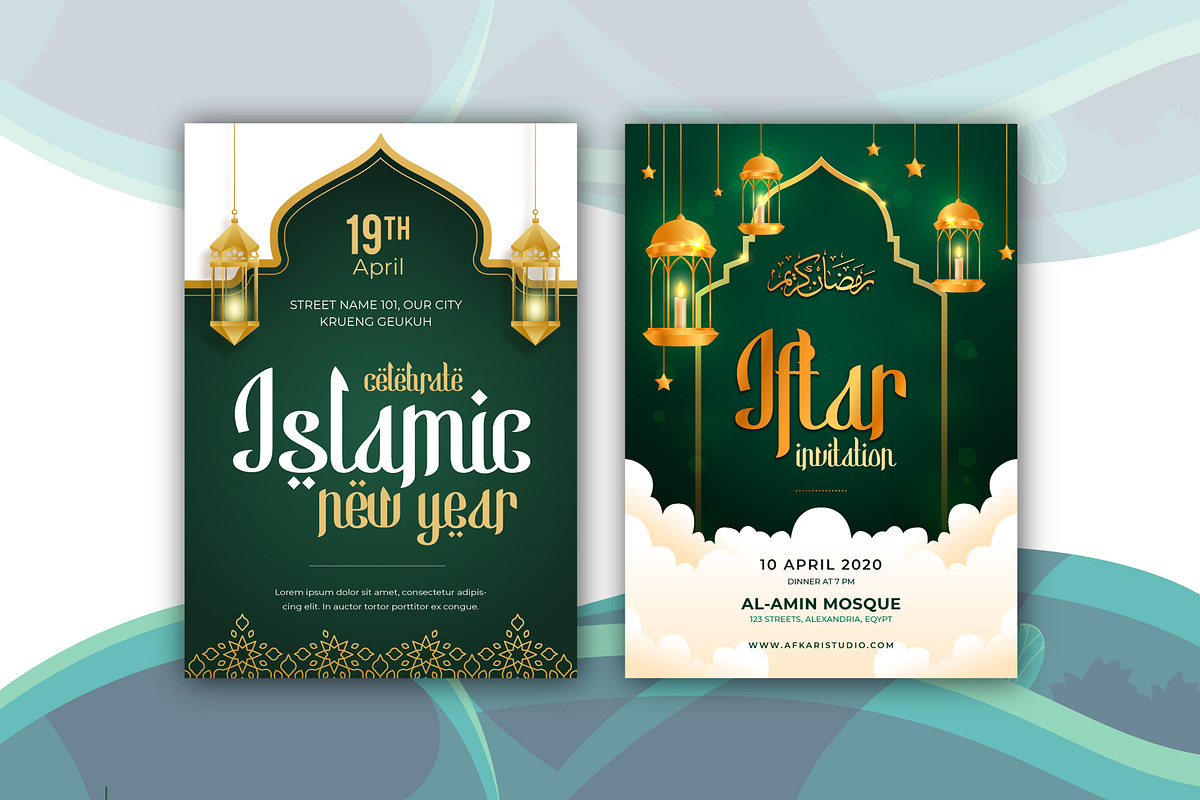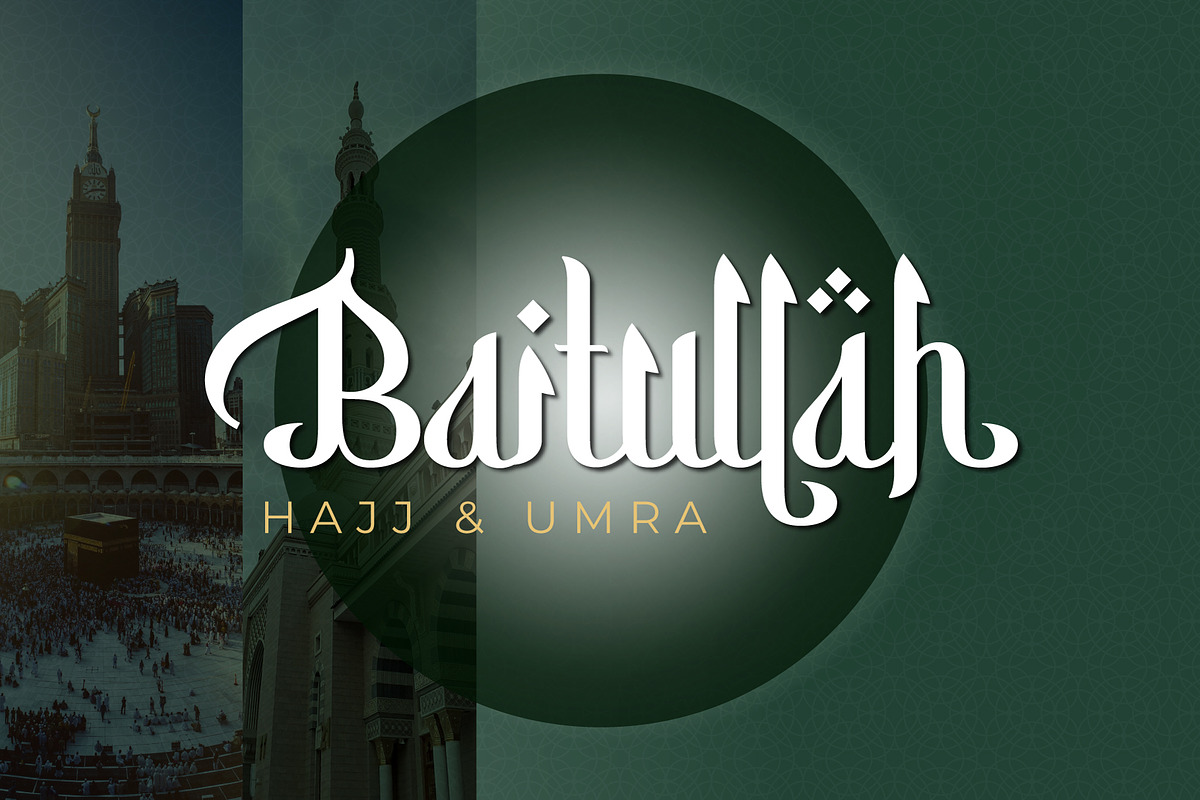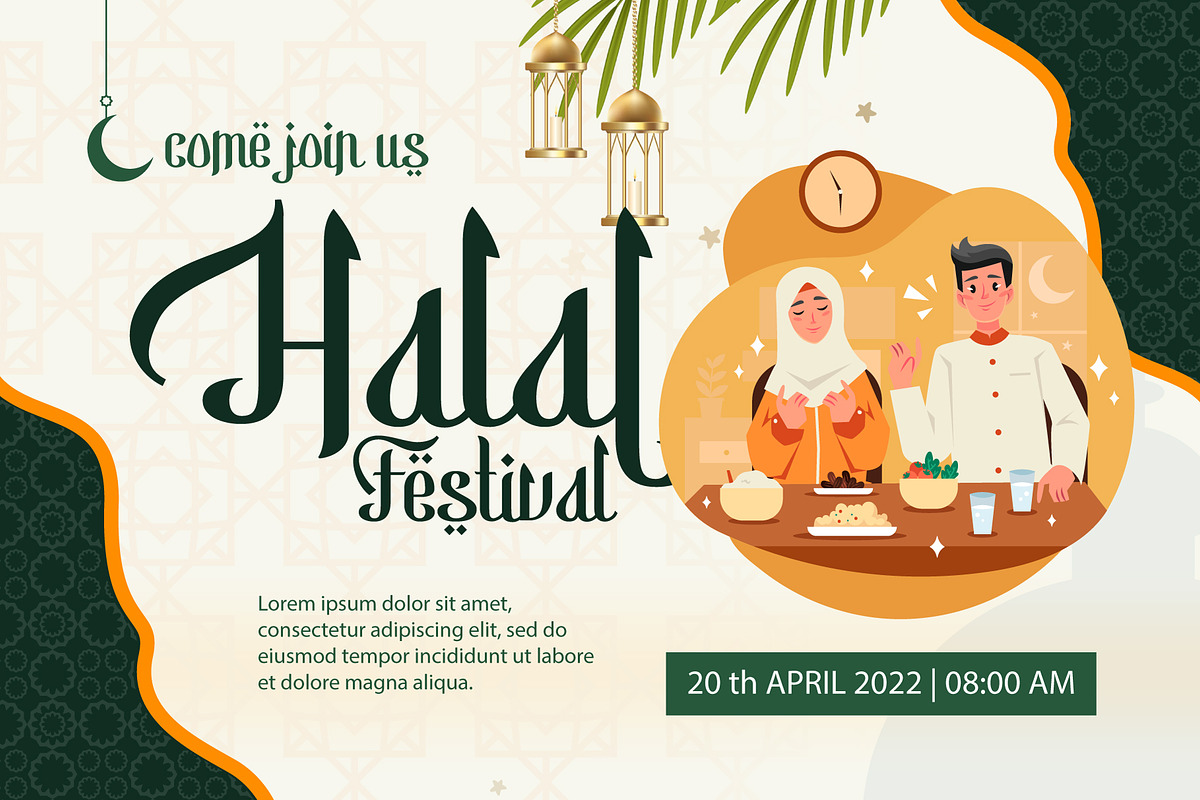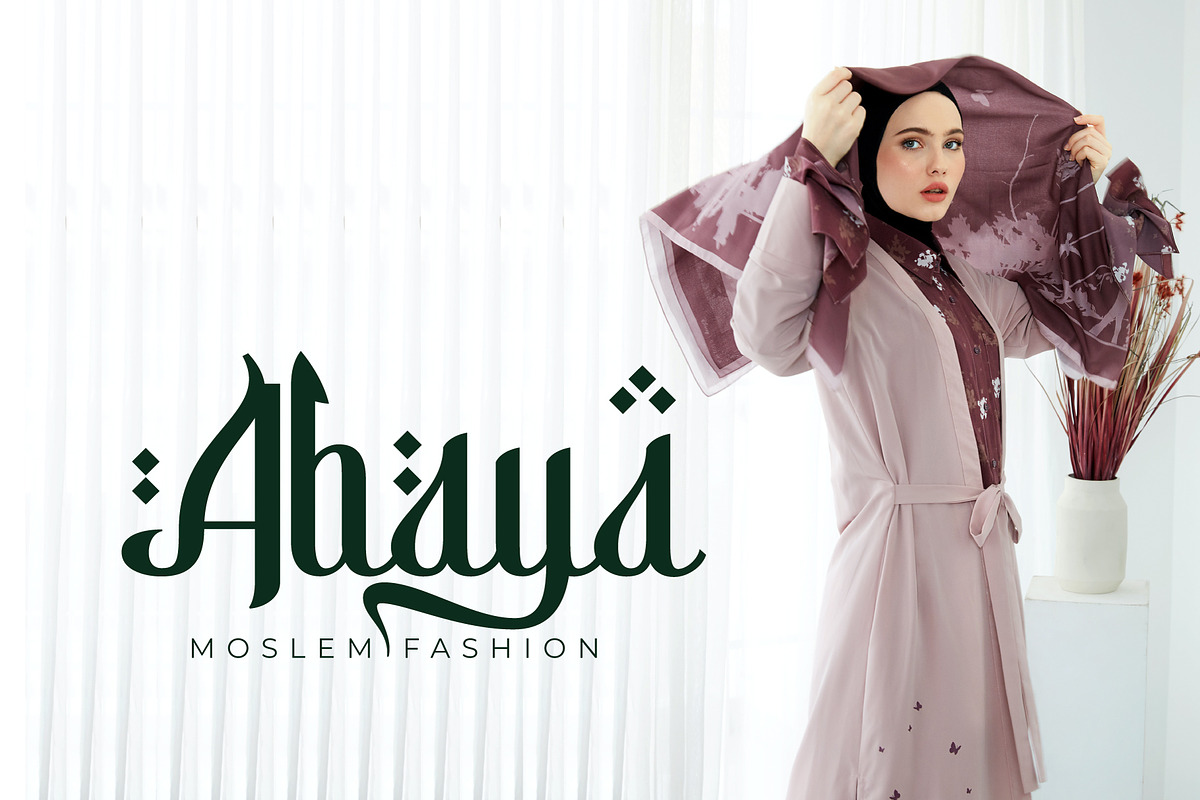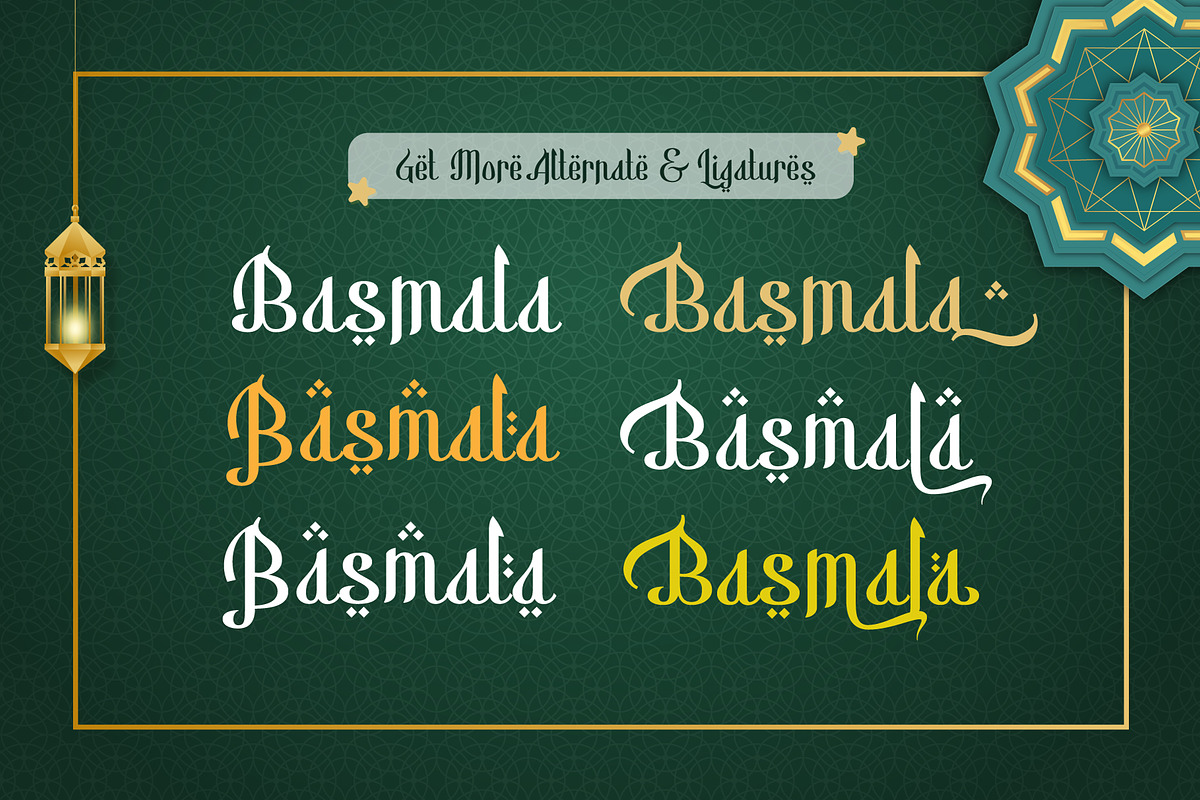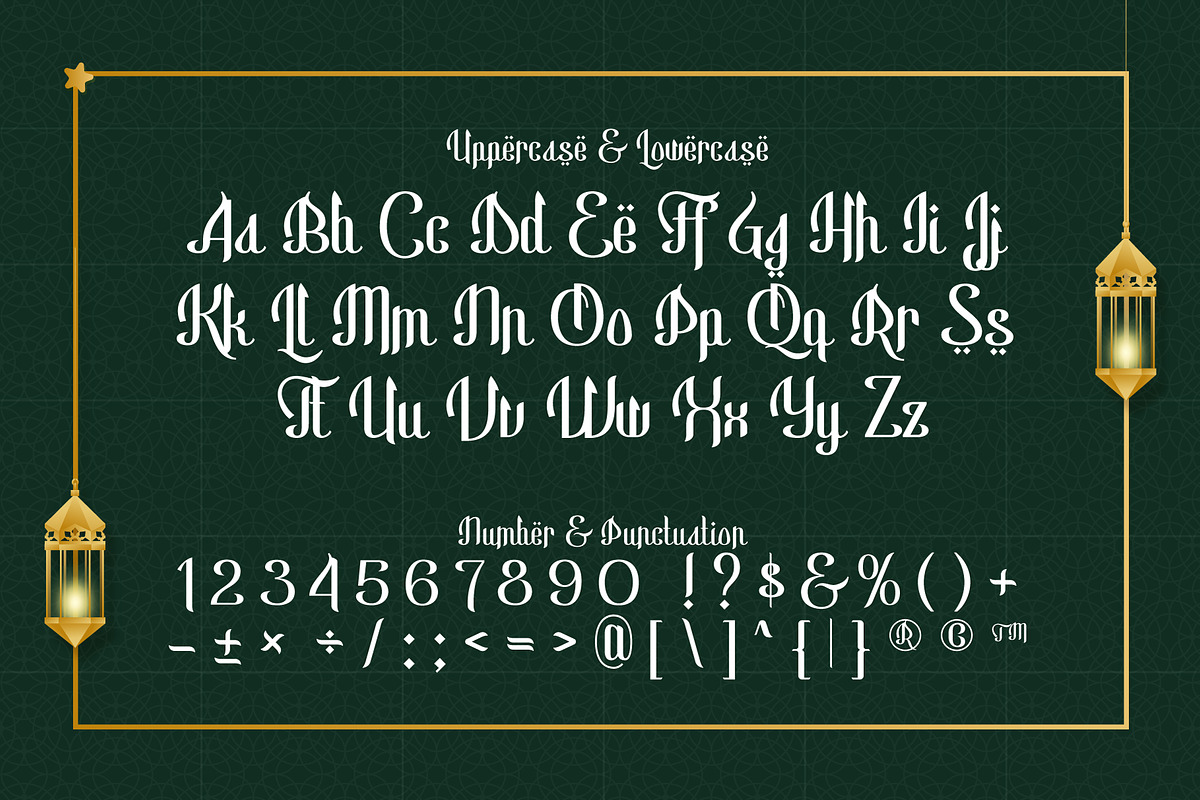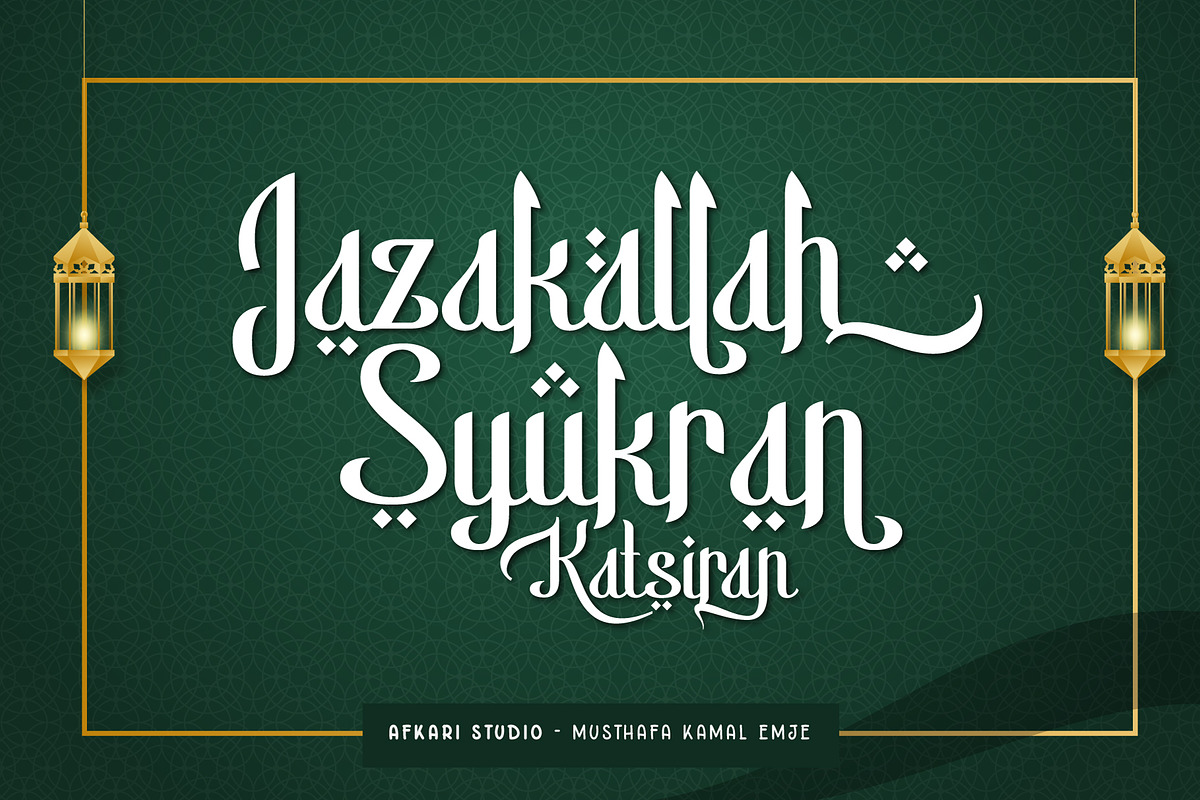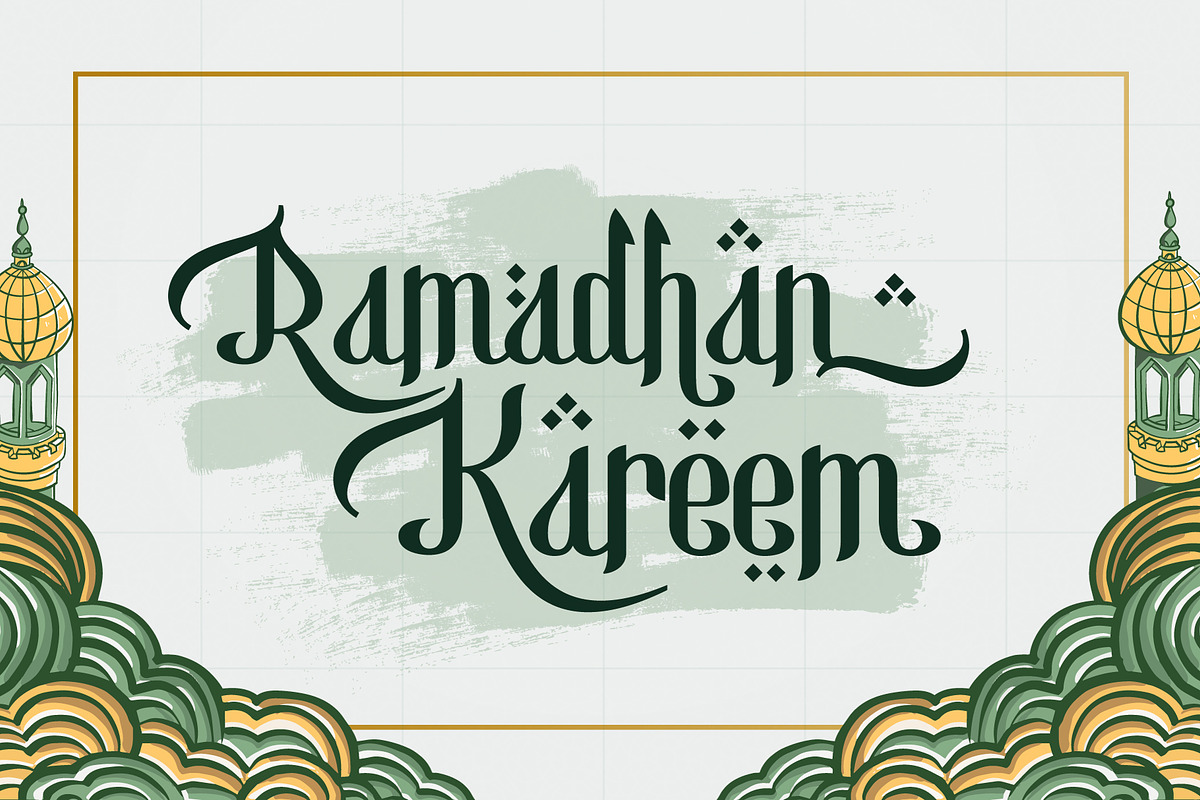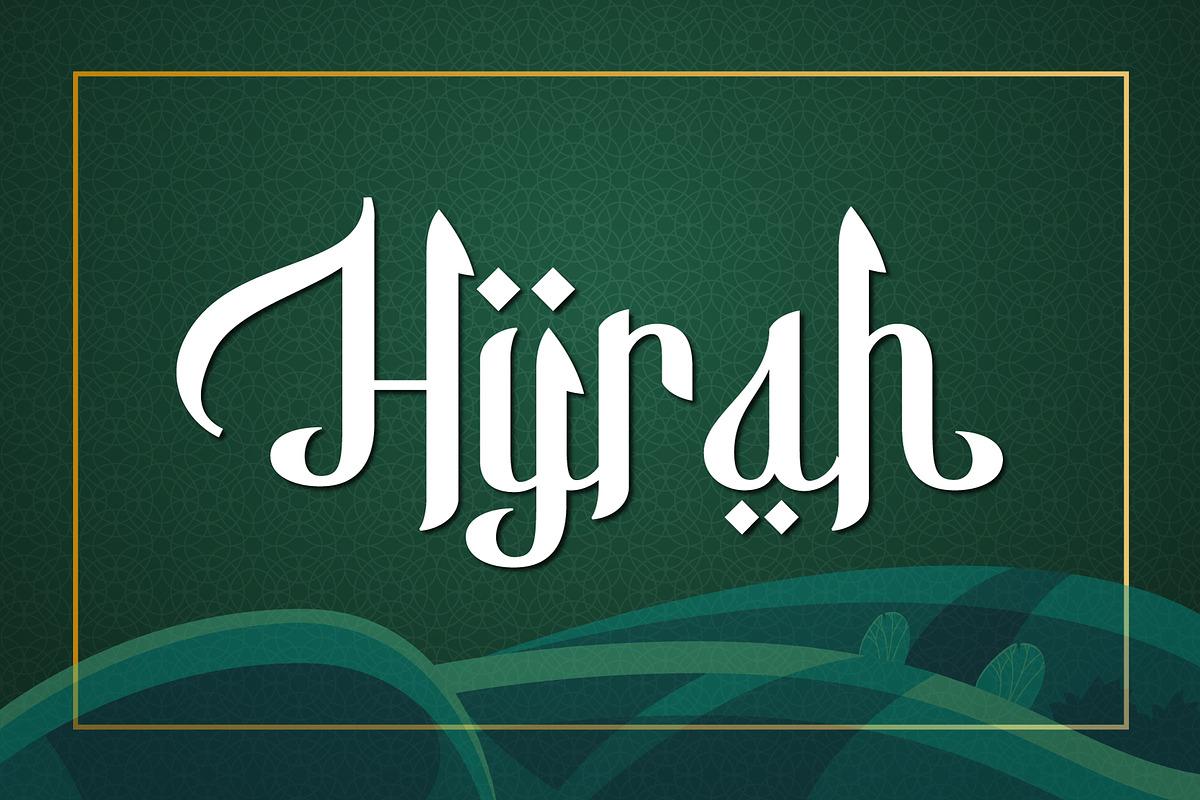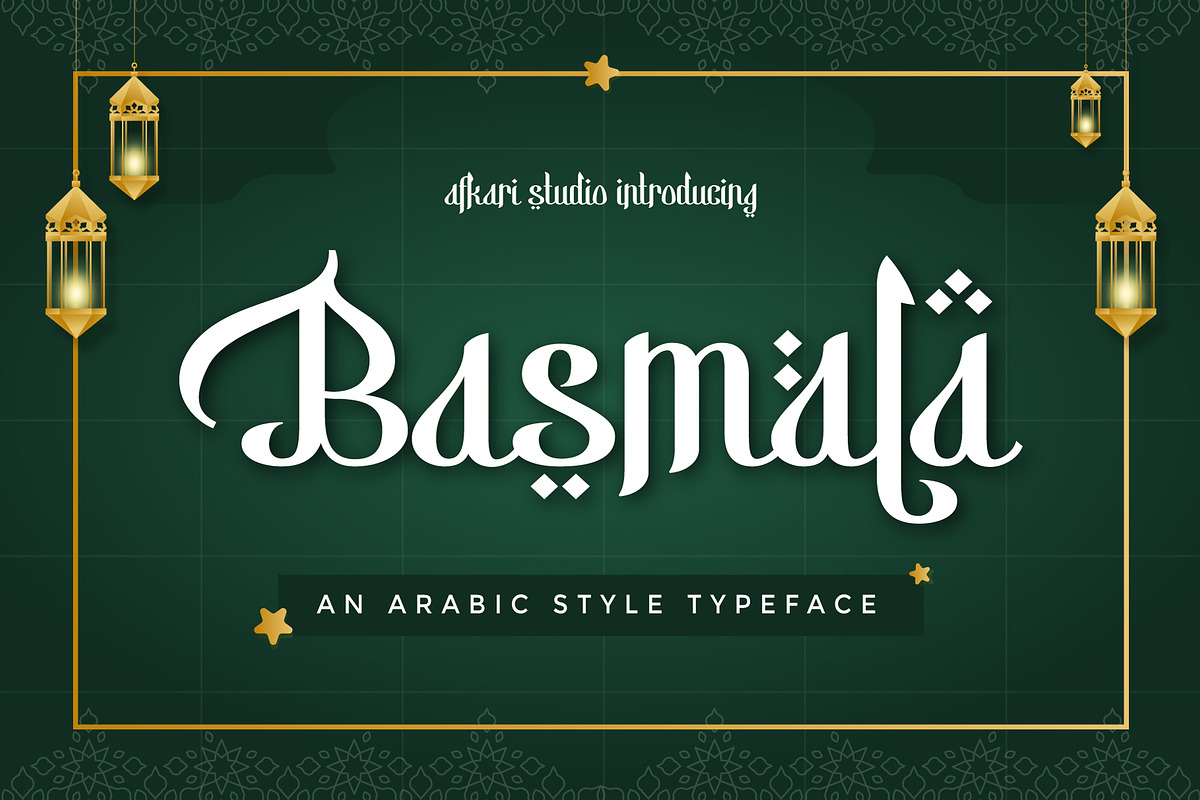
Basmala - An Arabic Style Typeface
NEW Ramadhan and Islamic font, Basmala, is an Arabic styled display typeface. This Islamic ramadhan arabic font is perfect for any graphics design related to Islamic style. You will get an Arabic feel to every text you type using this font. Made with Latin characters so that it can be read internationally which does not have to be able to read Arabic characters
This Islamic font is suitable for branding, product packaging, quotes, flyers, posters, logotype, apparel, T-shirt, Hoodie, book covers, movie title, advertising, and more.
Features;
- Uppercase, Lowercase, Number, and Punctuation
- Special Alternates and ligatures
- Mültîlíñgúãl Sùppört for; ä ö ü Ä Ö Ü ß ¿ ¡